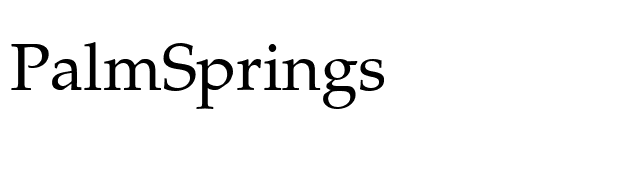
Does Anybody Know What Font They Used In The Logo Of Palm Springs (Hulu Original Movie)
Palm Springs Graphic Font Is A One Of Kind Typeface With Built In Graphics.